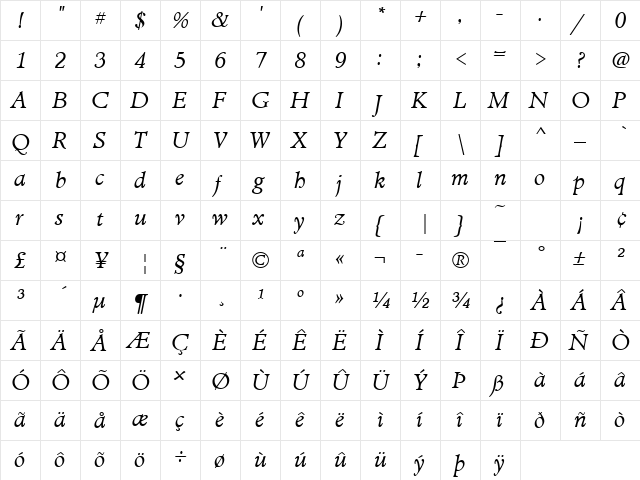
MinisterT Italic
Design Context for MinisterT Typeface
MinisterT takes a measured approach to typography — its balanced proportions and neutral character make it a reliable workhorse for both digital and print work. The dynamic lean of this cut emphasises speed and emphasis in any layout.
Pro Tip: Try MinisterT for annotation and caption copy alongside an upright companion — the contrast in angle creates a dynamic but ordered typographic system.